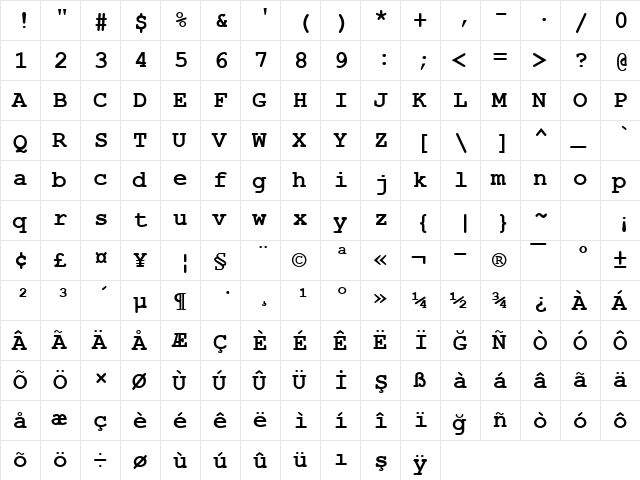
Courier New Digiscream Bold
Design Context for Courier New Digiscream Typeface
Courier New Digiscream uses fixed-width spacing throughout, giving it the structured, systematic character associated with coding environments and technical documentation. The heavy weight commands attention and anchors typographic hierarchies.
Pro Tip: Pair Courier New Digiscream with a proportional sans for UI contexts where code-style labels and regular body copy need to coexist.